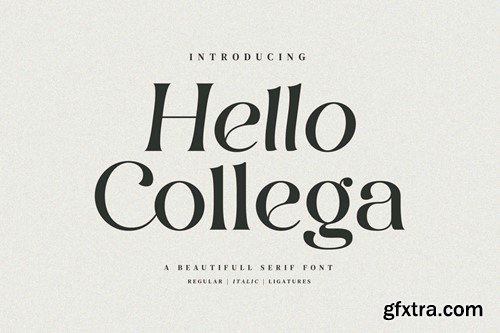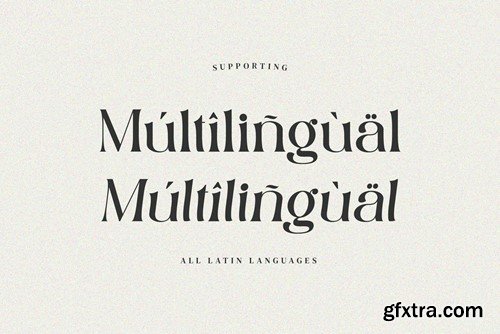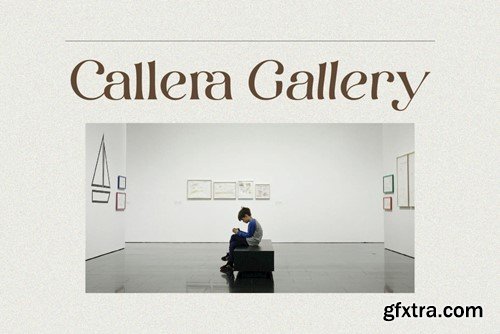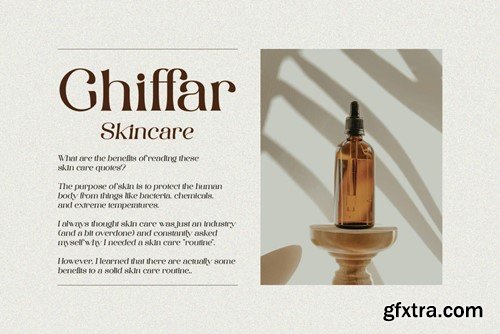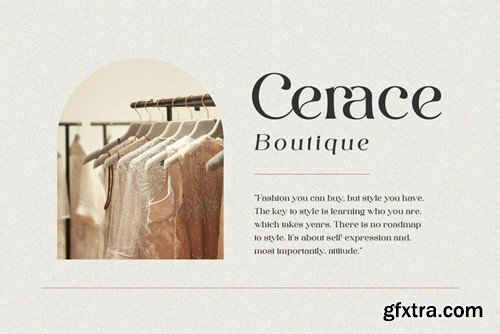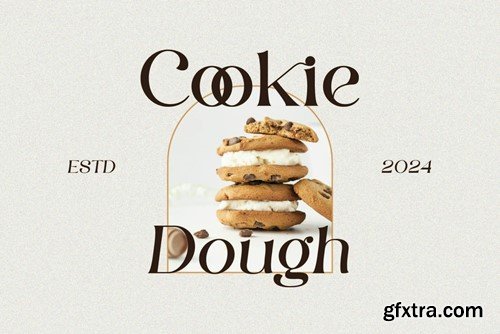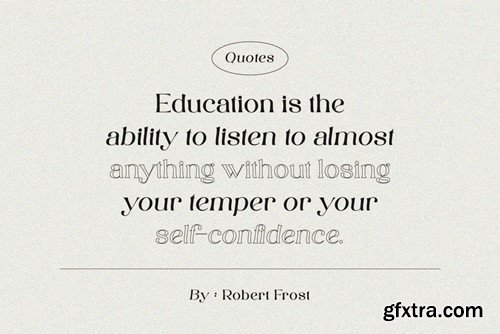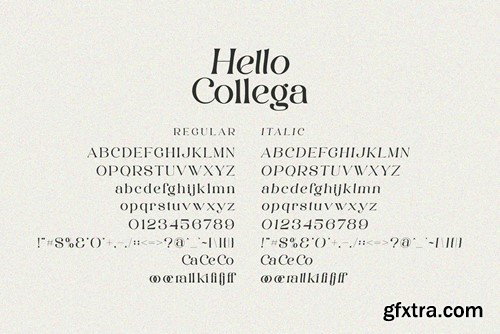
你好同事 - 美丽的连字符字体WFQ8JPX
Hello Collega - Beautiful Ligature Font WFQ8JPX
Hello Collega - Beautiful Ligature Font
Hello Collega Stylish Ligature Typeface, inspired by the famous minimalist logo perfect for the purposes of designing templates, brochures, videos, advertising branding, logos and more.
• Standard glyphs
• Ligatures
• International Accent